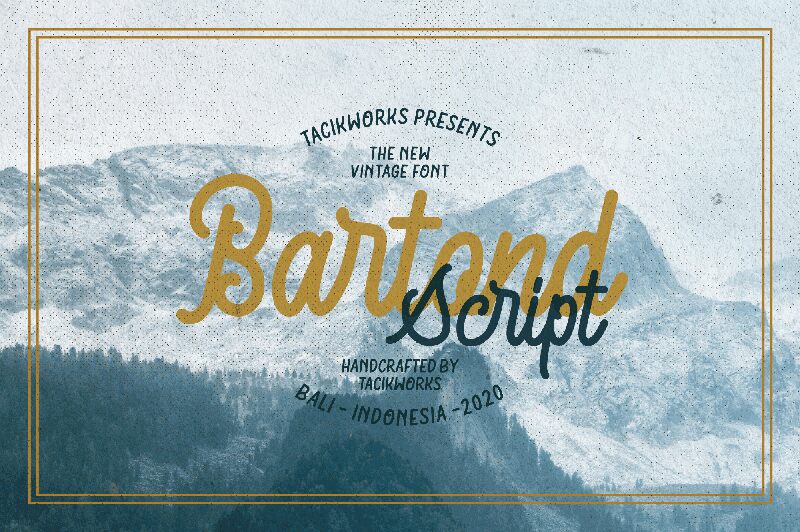
Bartond Script
Tacikworks
Ivan Yahya
Bartond Script font is inspired by vintage designs with rough lines. Make the classic impression of this font stand out more. This font has approximately 219 glyph characters including uppercase, lowercase, discretionary ligatures and standard ligatures alternatives. It is suitable for creating vintage designs such as posters, merchandise, clothing, brochures, business cards and others.